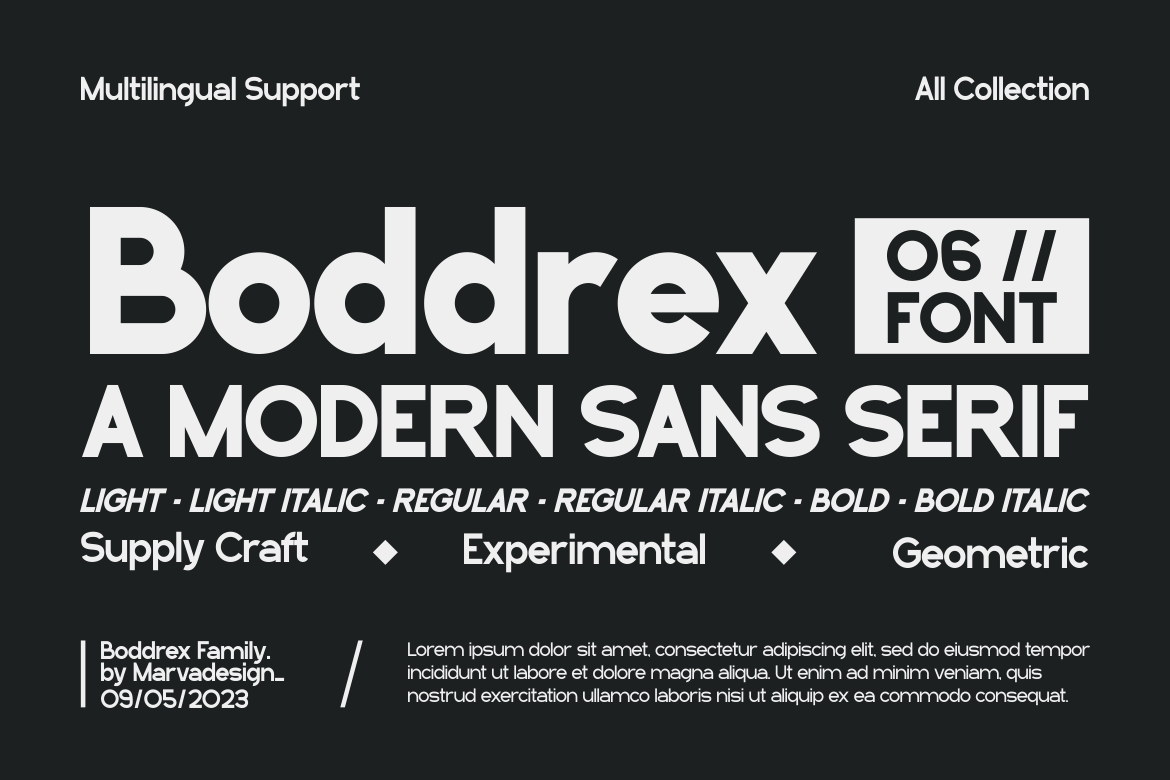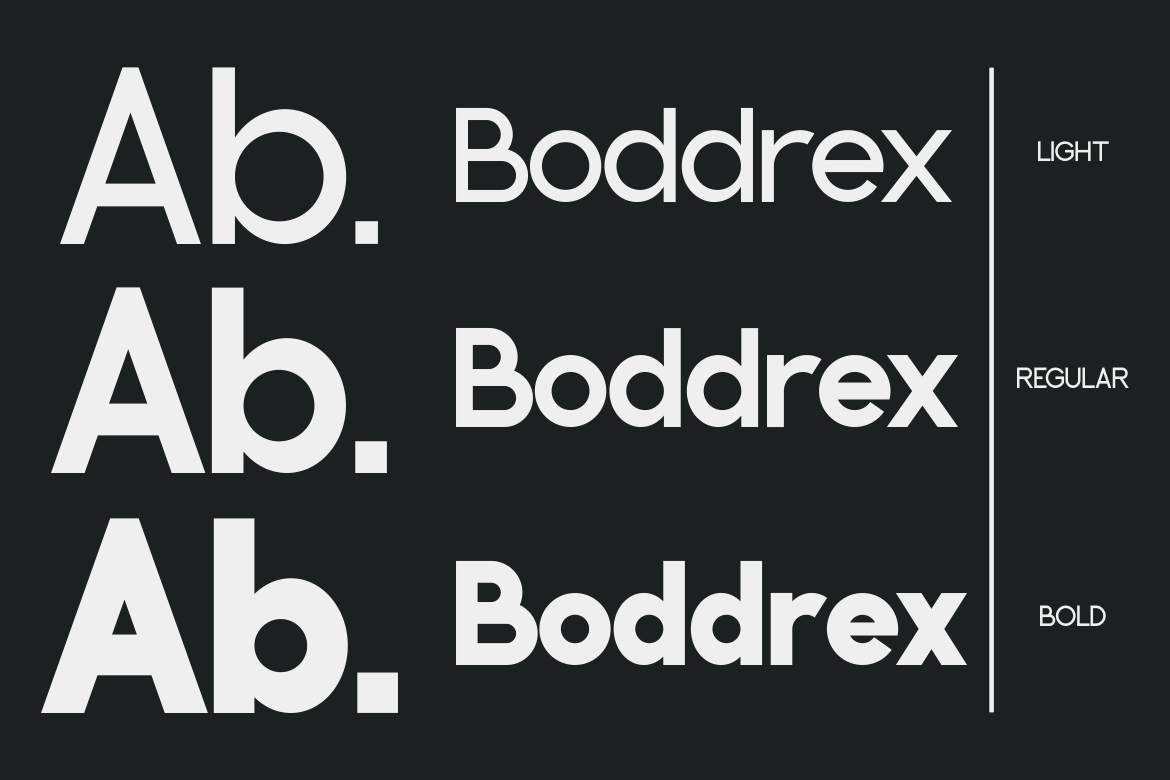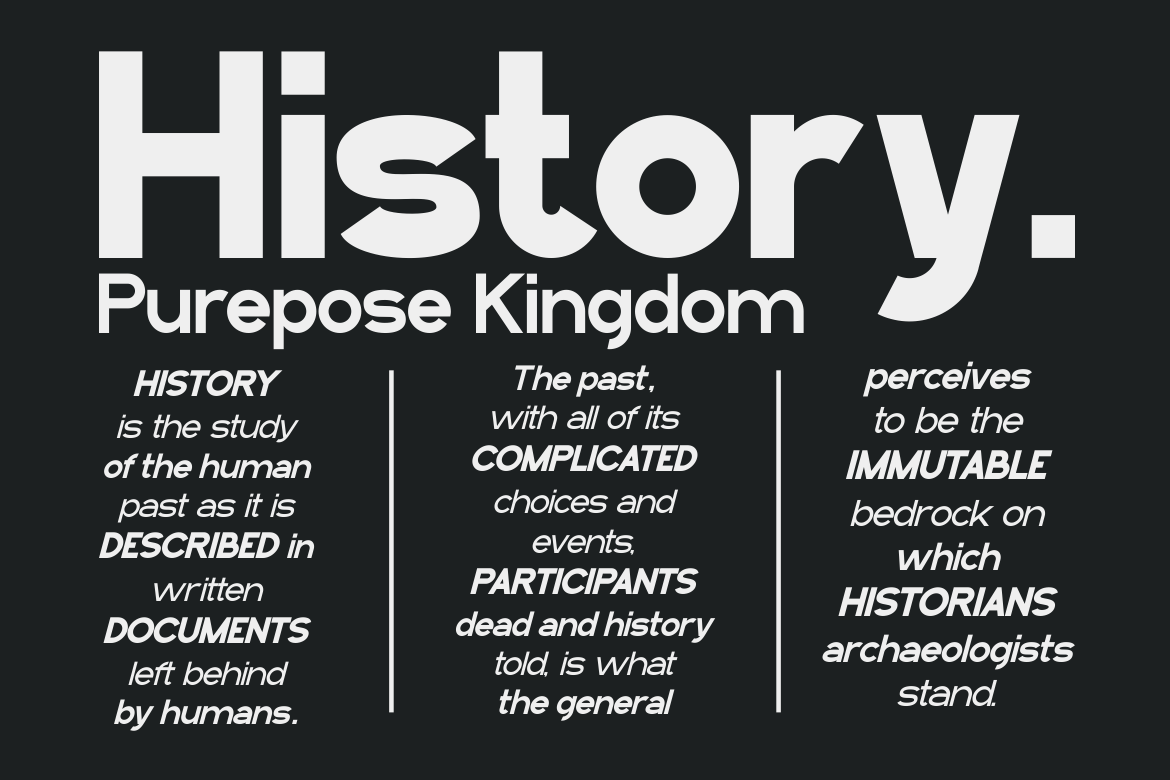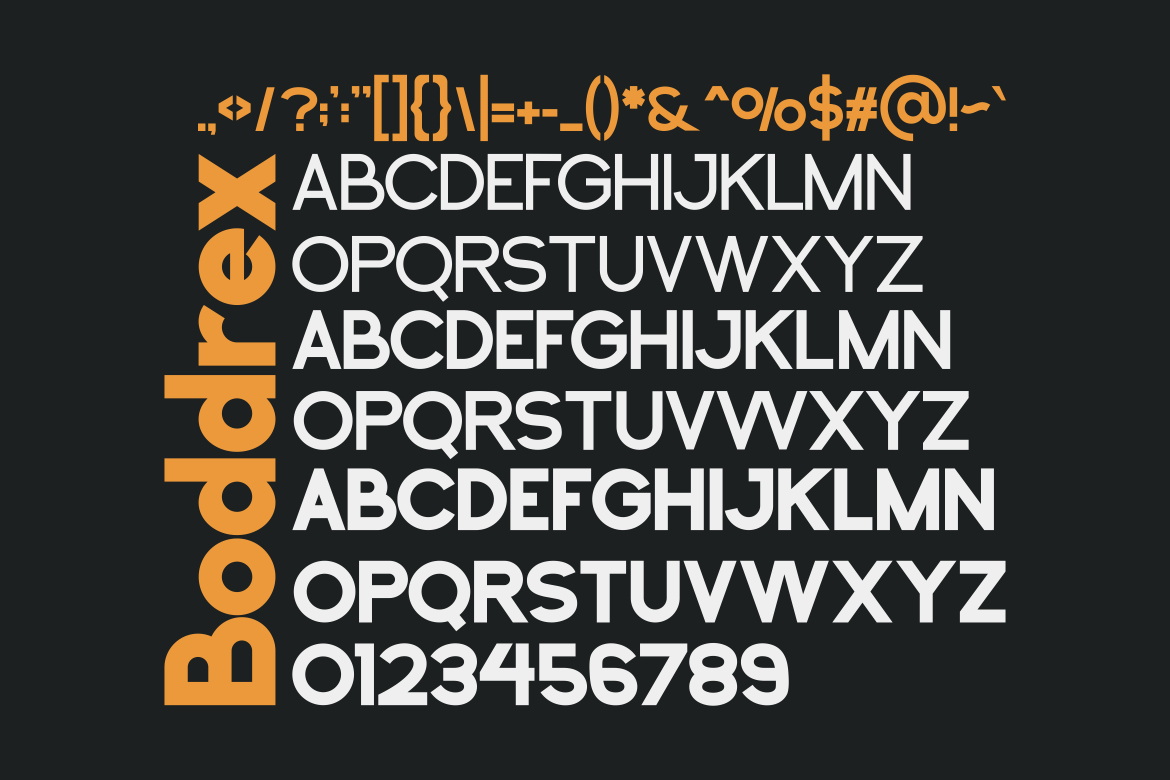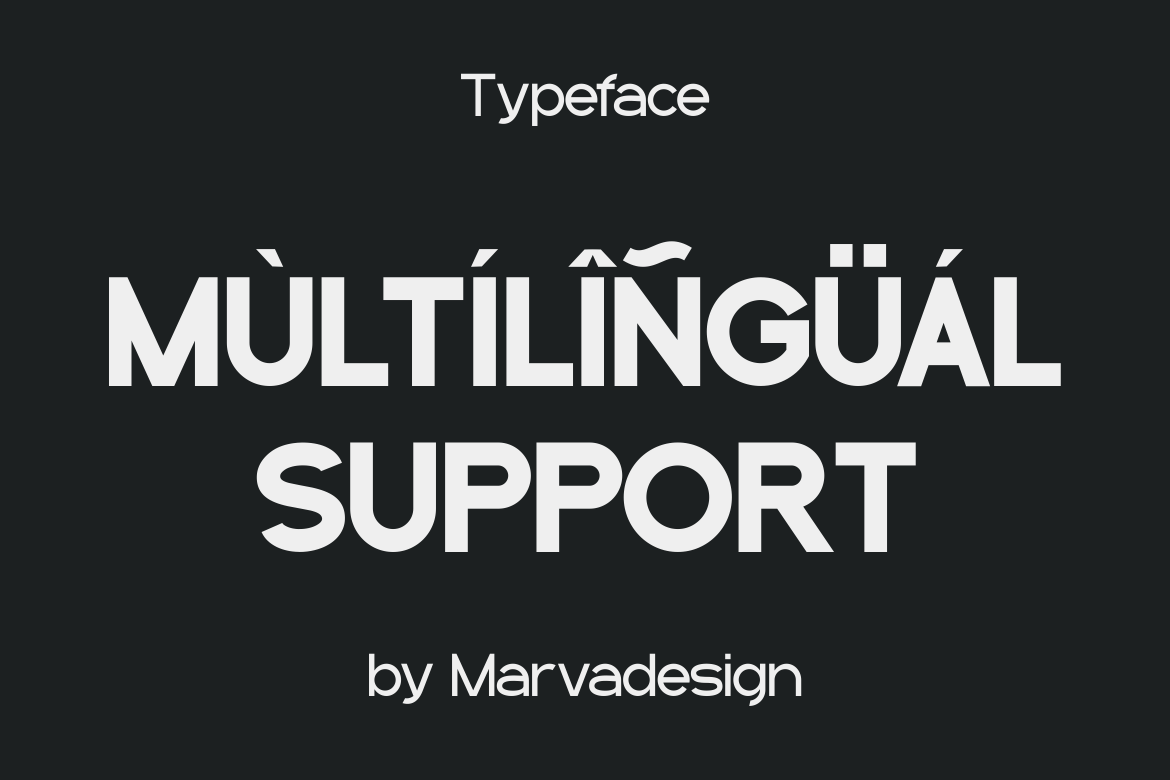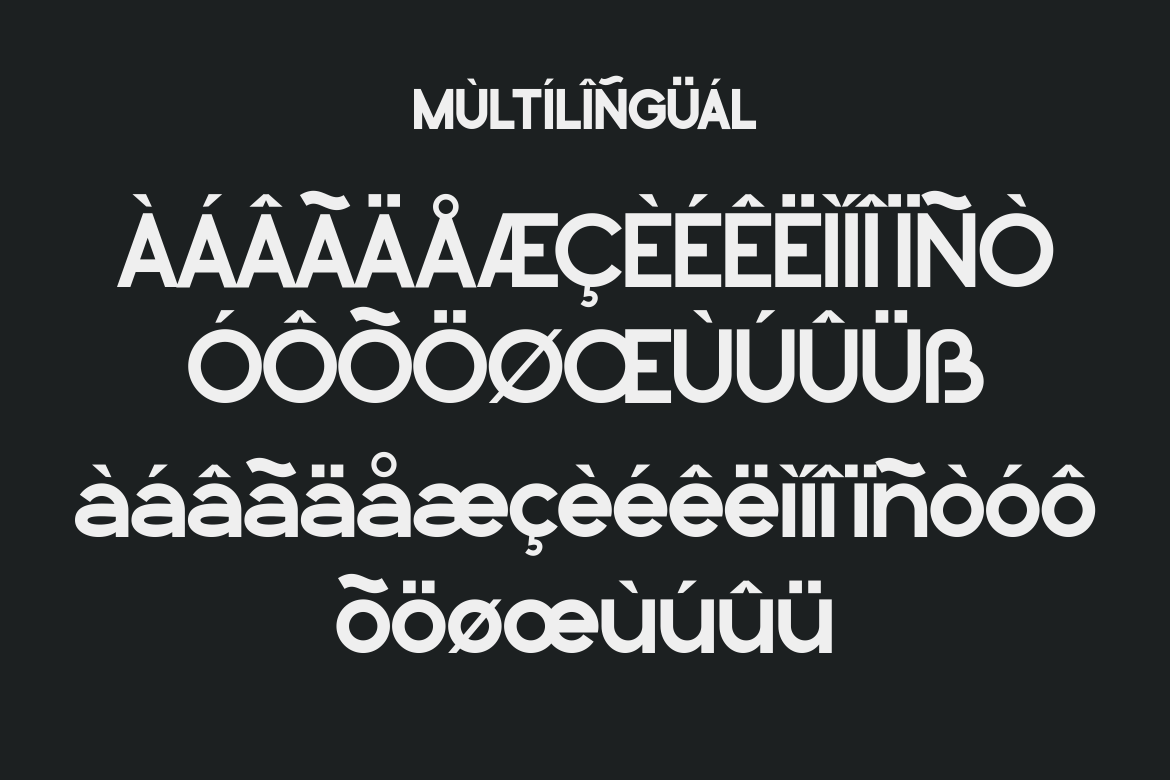
Introducing our new product Boddrex Font - Modern Font Boddrex Font** - Modern Font is a bold and authentic display font. The font is suitable for any branding project like logo, Template, Product and many more. outstanding in a wide range of contexts.